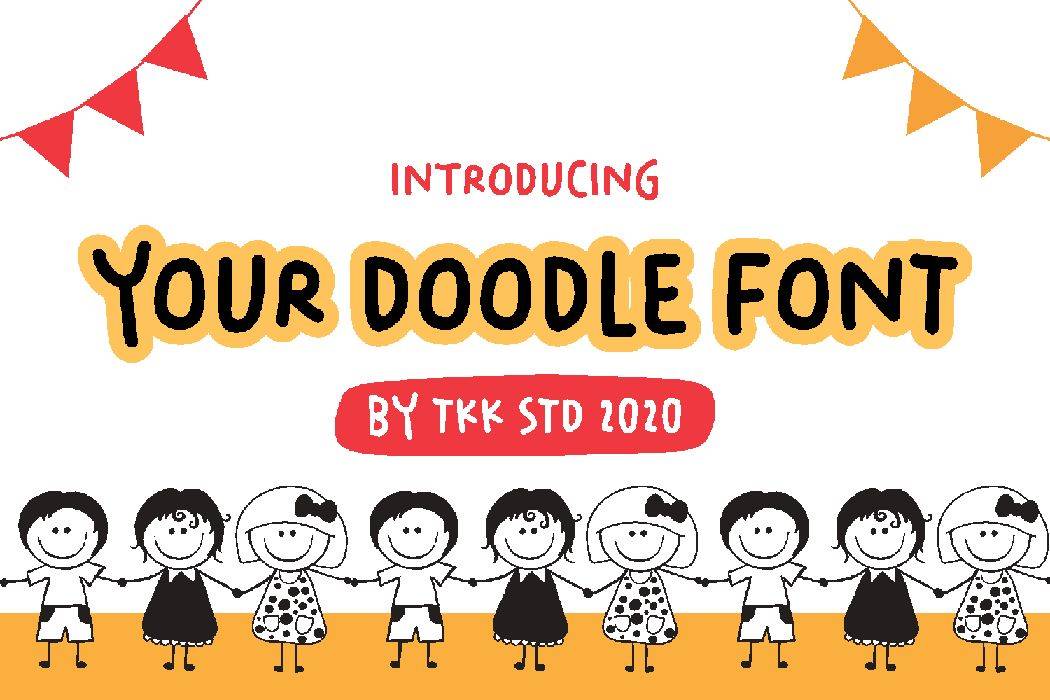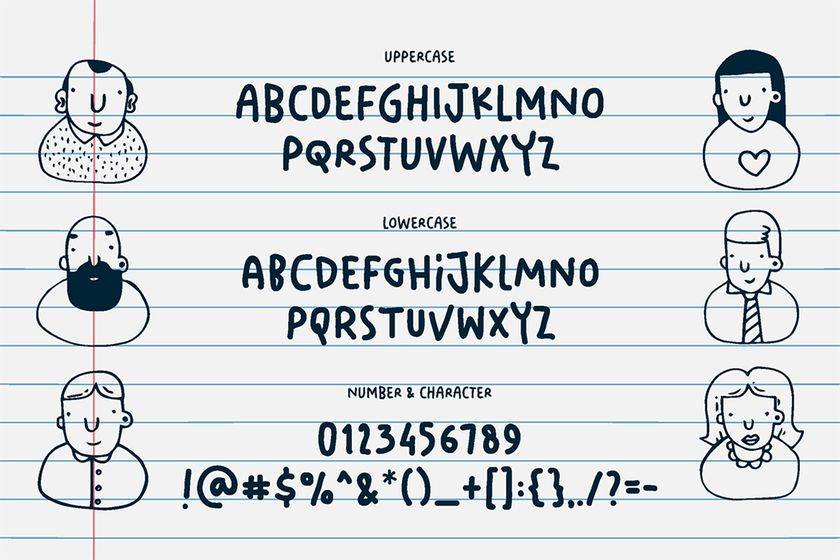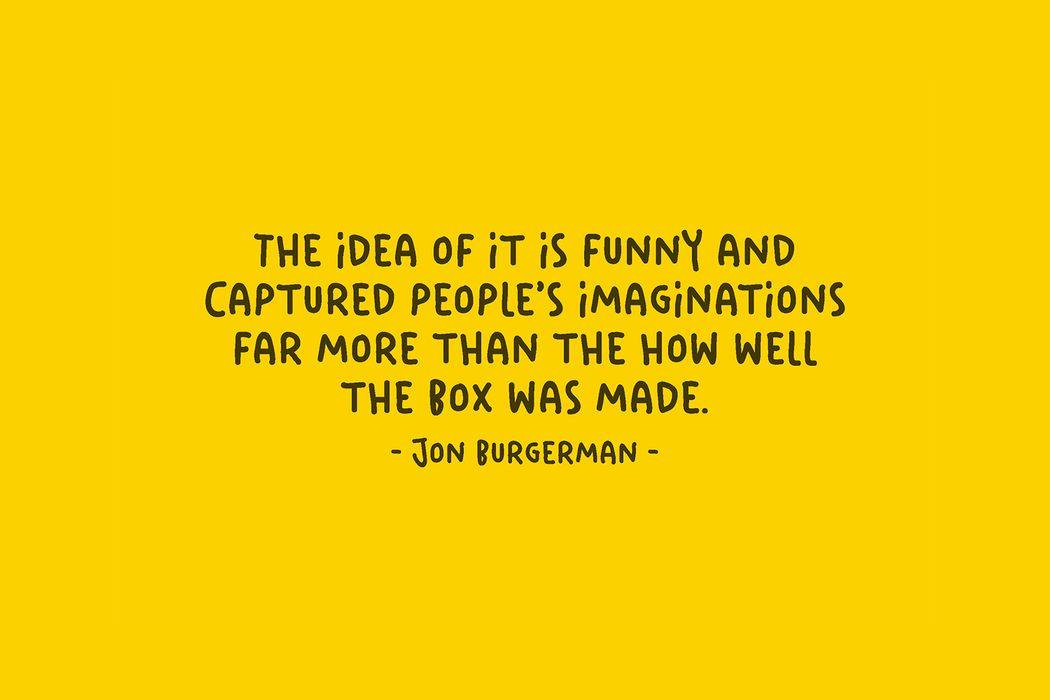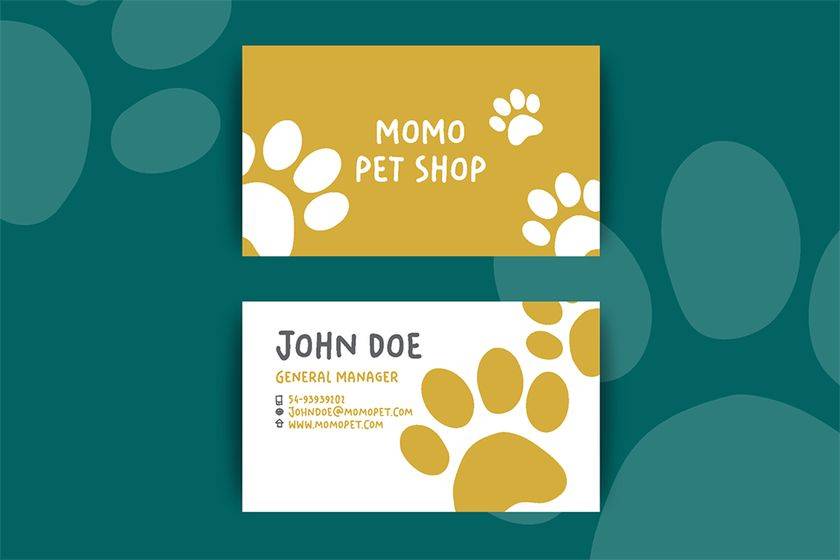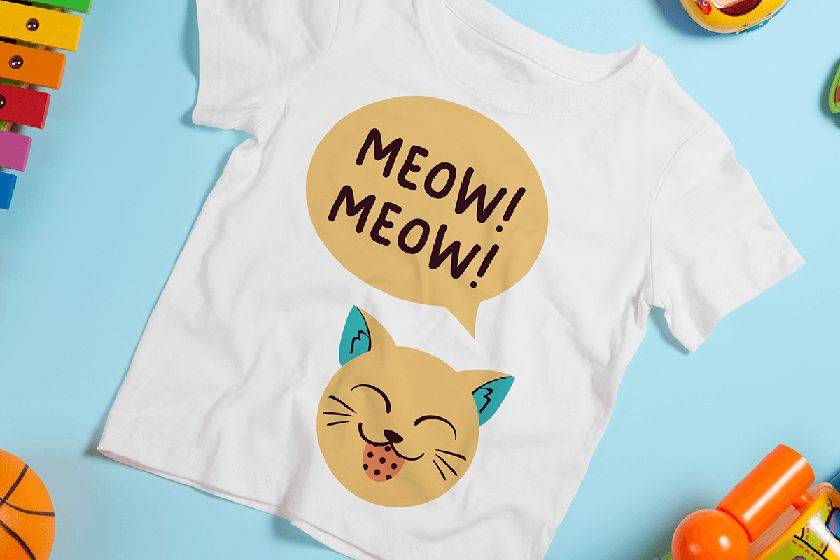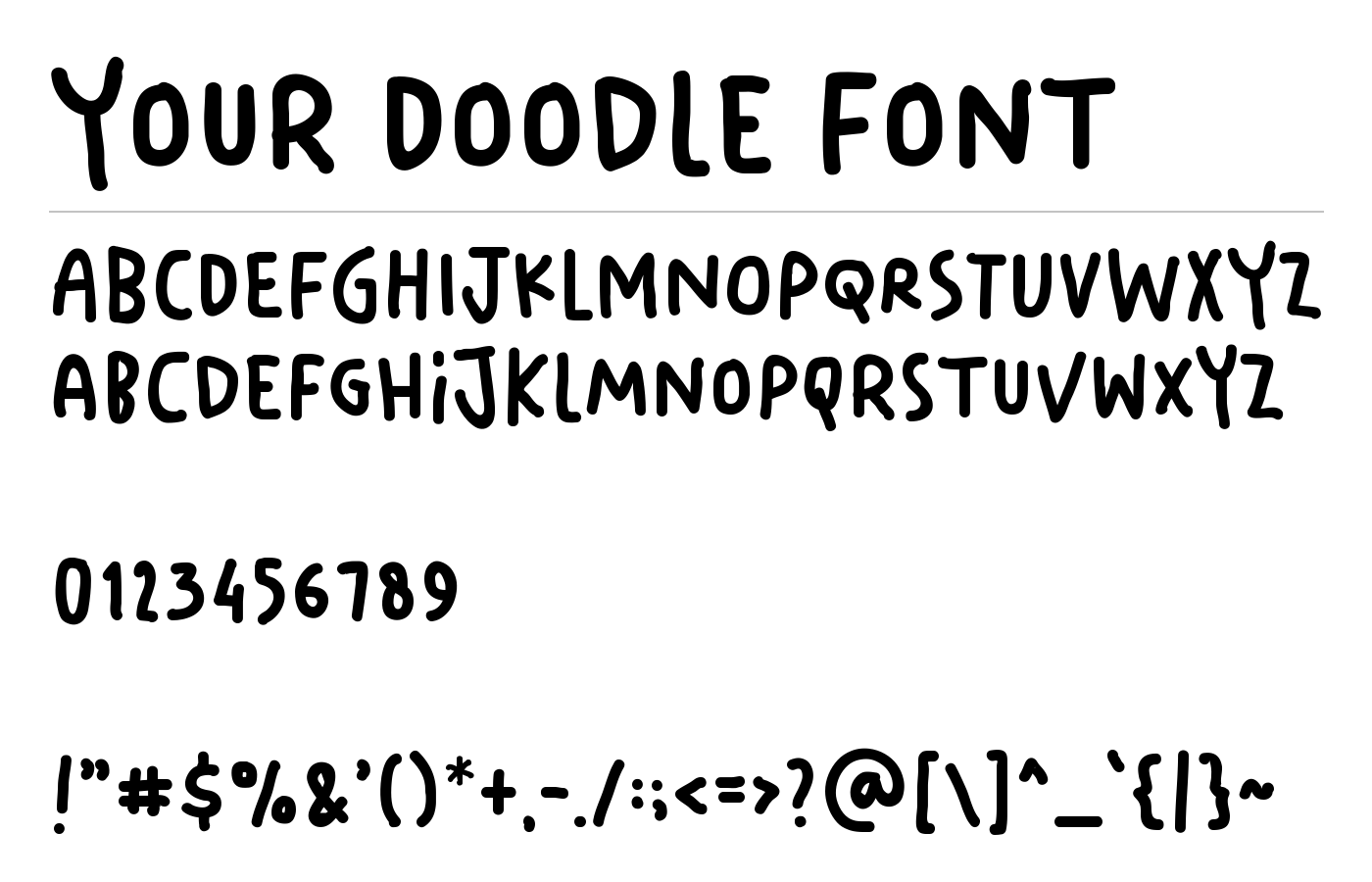
Your Doodle Font is a playful and casual sans serif typeface with a hand-drawn, irregular style that mimics natural doodling. Its rounded, slightly uneven strokes give it a friendly and approachable personality, making it ideal for informal designs, children's projects, and creative branding where a fun and relaxed tone is desired. This font works well for headlines, packaging, and any context where a personal, whimsical touch is needed.
Your Doodle Font
About Your Doodle Font
| Font family | Your Doodle Font |
| Release date | 2020-07-01 |
| Designer | Sahirul |